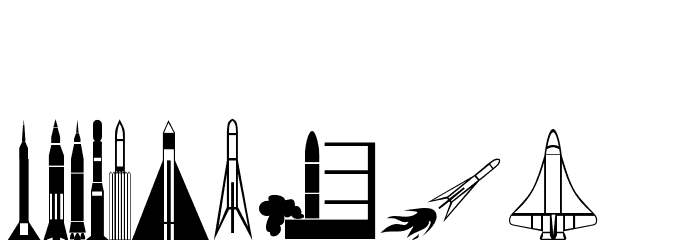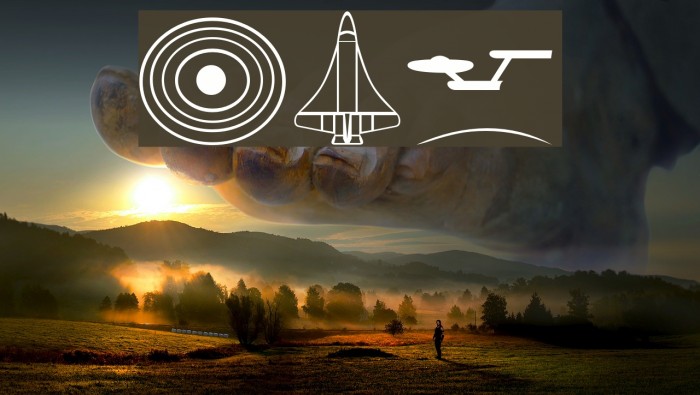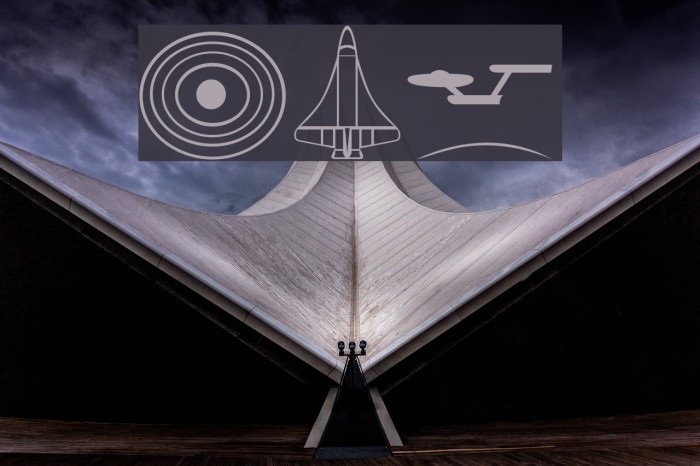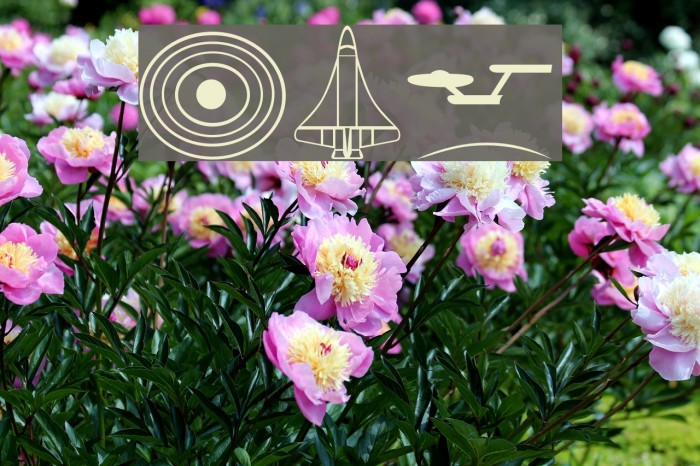
Carr Space Font
Carr Space Description
A decorative dingbat font featuring various space-themed icons such as rockets, satellites, planets, spaceships, and extraterrestrial figures. Each character is replaced by a unique space-related illustration, making it suitable for thematic designs.
| Overall Style | Decorative, Thematic, Playful |
| Use Case | Icons, Decorative elements, Themed graphics |
| Proposed Projects | Educational posters, science fiction book covers, children's space-themed party invitations, STEM classroom materials, and decorative headings. |